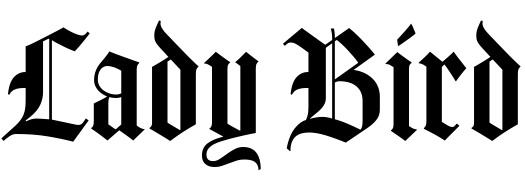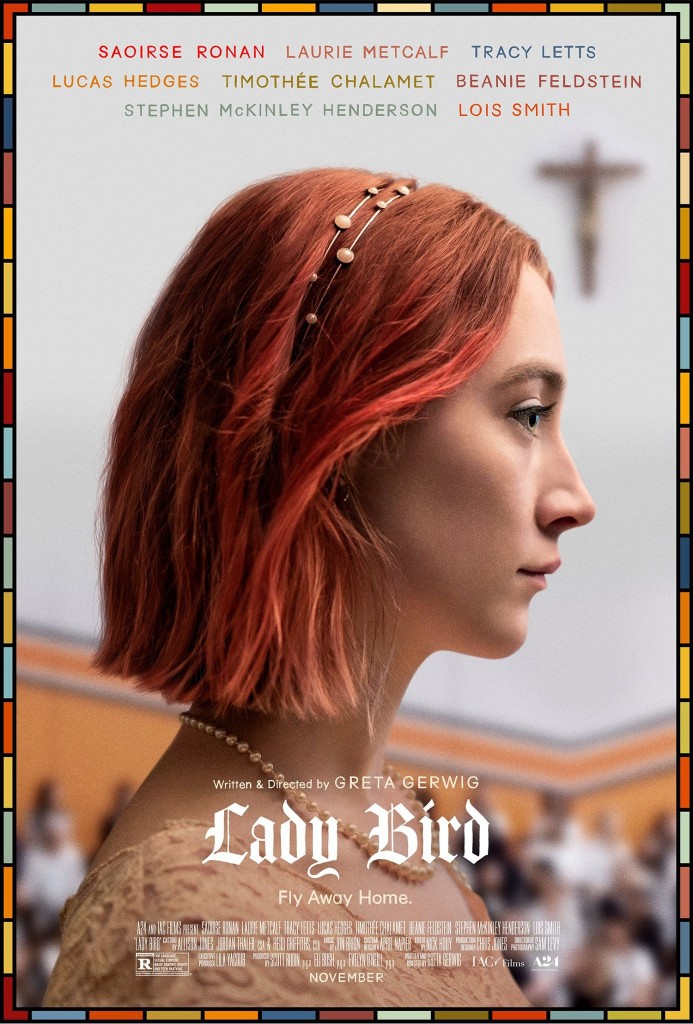
Lady Bird Font
DramaLady Bird is a coming-of-age film that follows the relationship between a high school student and her mother, as they navigate the challenges of growing up in Sacramento, California.
The title of the film on the poster is designed using Amador, a blackletter font created by Jim Parkinson in 2004. More details about the font can be found here.